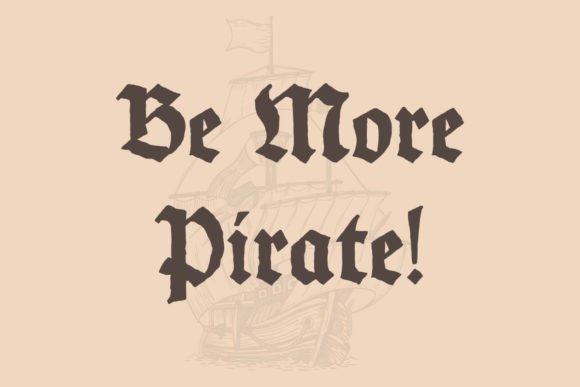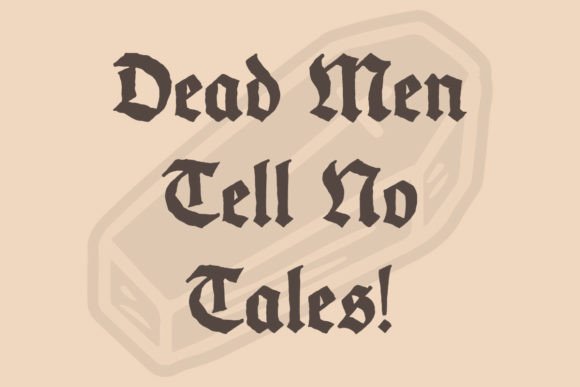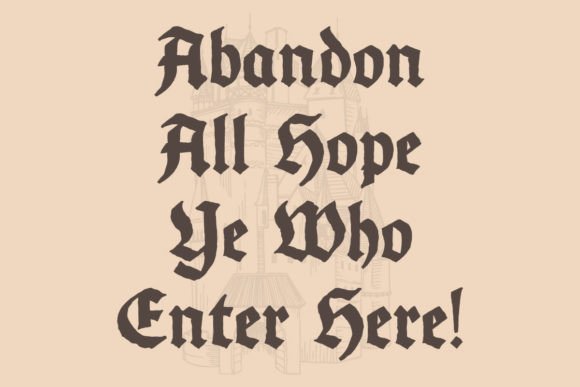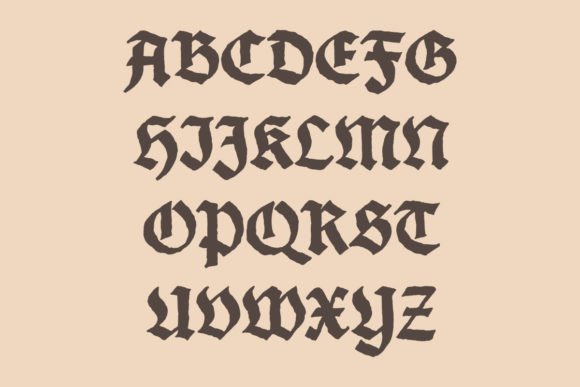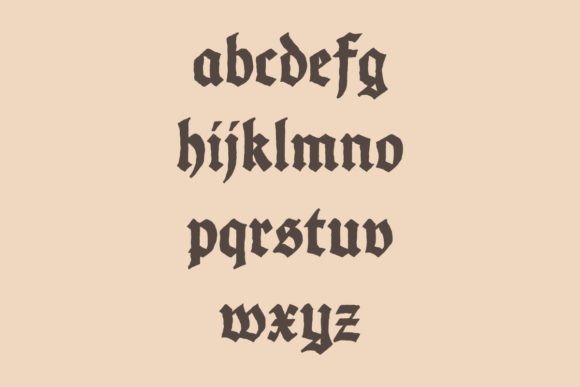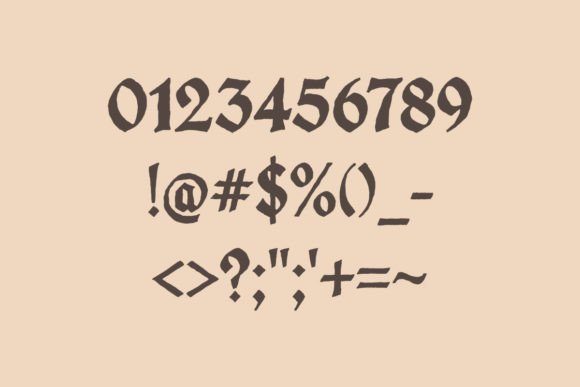
Unlock the Secrets of the Past with Cap’n Dreadful Font
As designers, we’ve all been there – staring at a blank page, searching for the perfect font to bring our latest project to life. And then, like a whispered secret, it happens. A font appears, and suddenly, the entire design falls into place. For me, that font was Cap’n Dreadful Font – a vintage and gothic handwritten masterpiece that seemed to transport me to a world of medieval manuscripts and dark mystique.
Cap’n Dreadful Font is a stunning blend of old-world elegance and mysterious allure, with intricate, swirling letters that evoke the ornate script of ancient tomes. Its sharp, angular edges hint at danger and intrigue, making it the perfect choice for designers looking to add a touch of sophistication and mystique to their work.
Cap’n Dreadful Font Key Features
- Character Set: The font includes a comprehensive set of characters, including uppercase and lowercase letters, numerals, punctuation marks, and special characters, making it suitable for various types of content.
- Unique Characteristics: Cap’n Dreadful Font features a distressed, vintage aesthetic with bold lines, irregular shapes, and a weathered appearance, adding a touch of nostalgia and whimsy to any design.
- Font Weight and Style: The font is available in two weights, Regular and Bold, and two styles, Normal and Italic, providing flexibility for designers to create a range of visual effects and moods.
Cap’n Dreadful Font Review
I’ve had the chance to work with the Cap’n Dreadful Font, and I must say, it’s a font that’s full of character. ✨ The font’s bold, nautical-inspired design is perfect for projects that need a sense of adventure and mystery. I’ve used it for several logos and branding materials, and it always adds a touch of whimsy to the design.
The font’s versatility is also a major plus. ✨ It comes in a range of weights and styles, making it easy to use for both headings and body text. The font’s also highly customizable, allowing me to fine-tune the look and feel to suit my client’s needs.
While I love the Cap’n Dreadful Font, there are a few limitations that are worth noting. ⚠️ The font’s a bit overused in some design circles, so it may not be the most original choice for every project. Additionally, the font’s complex design can make it difficult to read at very small sizes.
Here are a few specific limitations I’ve encountered:
- Font size limitations: As mentioned, the font’s complex design can make it difficult to read at very small sizes.
- Overuse: The font’s popularity has led to some overuse in design, which can make it feel less unique or special.
Overall, I’m a big fan of the Cap’n Dreadful Font. While it has its limitations, the font’s unique design and versatility make it a valuable addition to any designer’s toolkit. I’d definitely recommend it to anyone looking for a fun, adventurous font to add some personality to their design.
Tip: Use the Cap’n Dreadful Font to create eye-catching headings and titles for your designs.
Tip: Use the Cap’n Dreadful Font to add a touch of whimsy and playfulness to your designs.
Tip: Use the Cap’n Dreadful Font to create attention-grabbing titles and headings for your presentations and documents.
The Cap’n Dreadful Font is perfect for:
- Pirate-themed designs and projects.
- Children’s books and educational materials.
- Whimsical and playful designs.
Remember to have fun and experiment with different font sizes, colors, and styles to get the most out of the Cap’n Dread
Does the Cap’n Dreadful Font include any special features or ligatures?
Yes, the Cap’n Dreadful Font includes a range of special features and ligatures to enhance the design and readability of your text. These include contextual alternates, swash characters, and ligatures that can be accessed through the font’s advanced features.